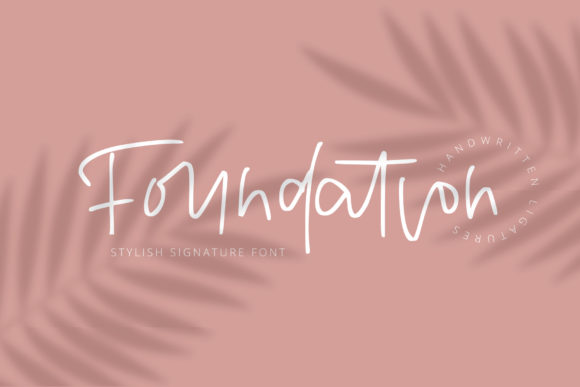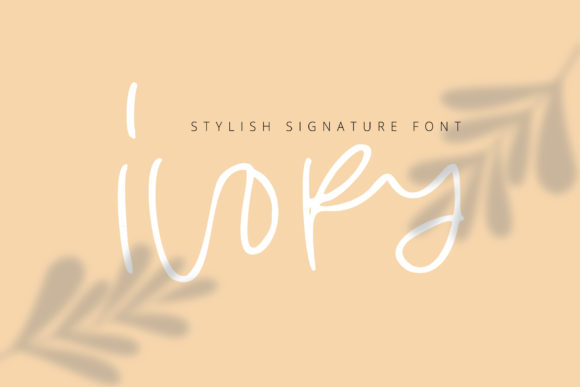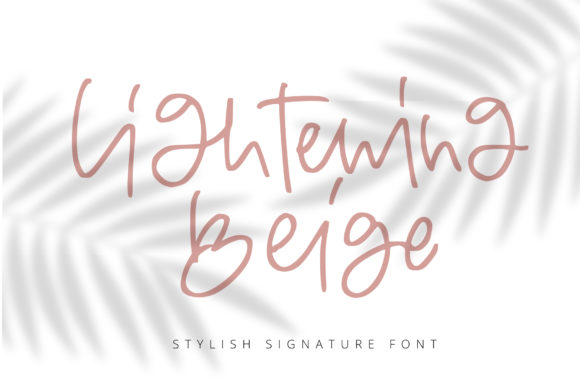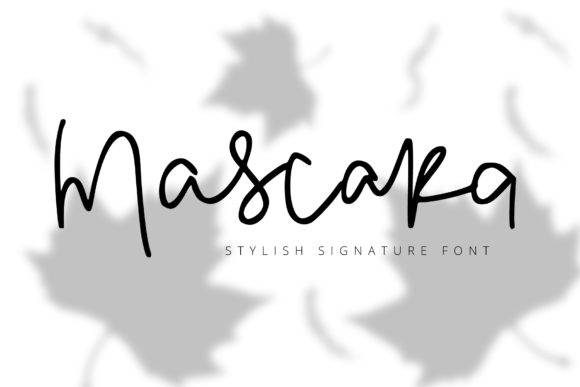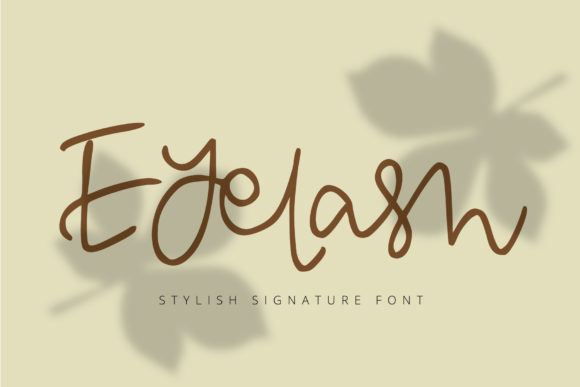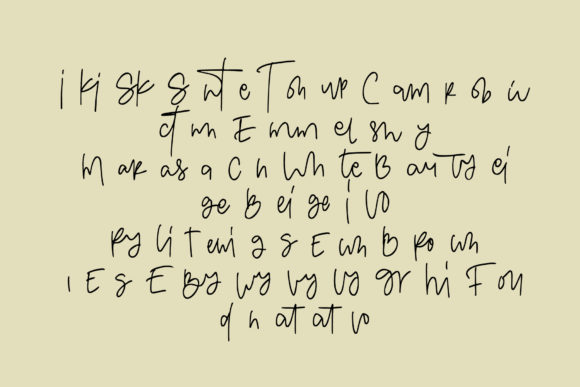
Introduction to Skintone Font Font
Fonts play a crucial role in design, and the Skintone Font font is a typeface that brings both character and versatility to any project. Whether you’re working on a branding project, a website, or a print design, the Skintone Font font offers a unique style that can elevate your work.
Skintone is a simple, relaxed and a bit sloppy handwritten font.
As a result of its unique style, this font will be a hit to a wide range of designs Add it confidently and you will love the outcome.
Key Features of Skintone Font Font
Why Choose Skintone Font Font?
The Skintone Font font is more than just a typeface – it’s a design tool that helps you communicate your message with style and clarity. Its unique character set and versatile design make it suitable for a wide range of applications, from elegant invitations to bold headlines.
With its carefully crafted letterforms and balanced proportions, the Skintone Font font ensures readability and visual appeal across all mediums.
What makes Skintone Font font special?
The Skintone Font font stands out with its unique design, exceptional readability, and versatility across various design applications.